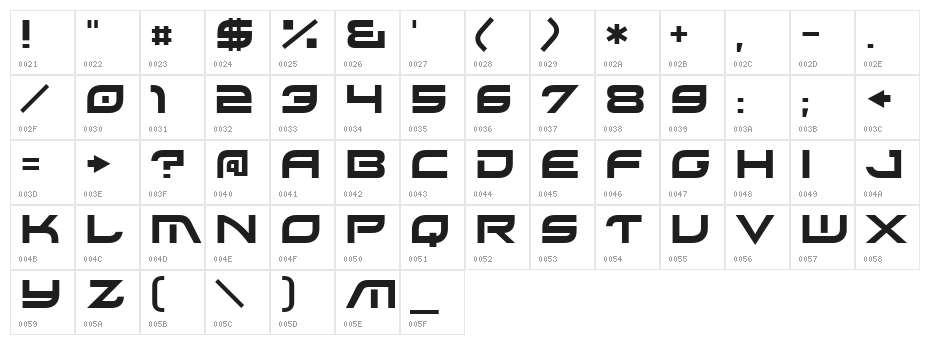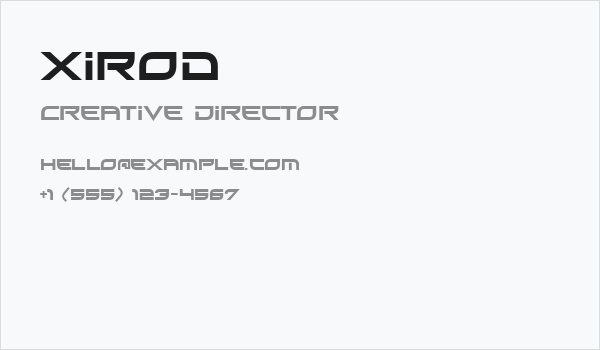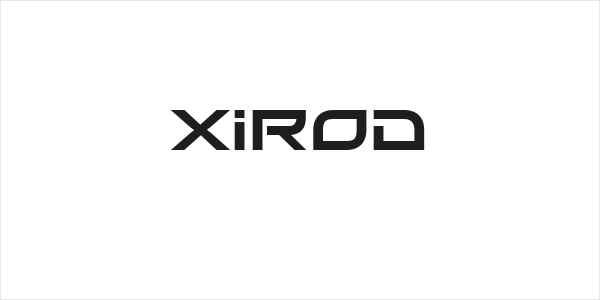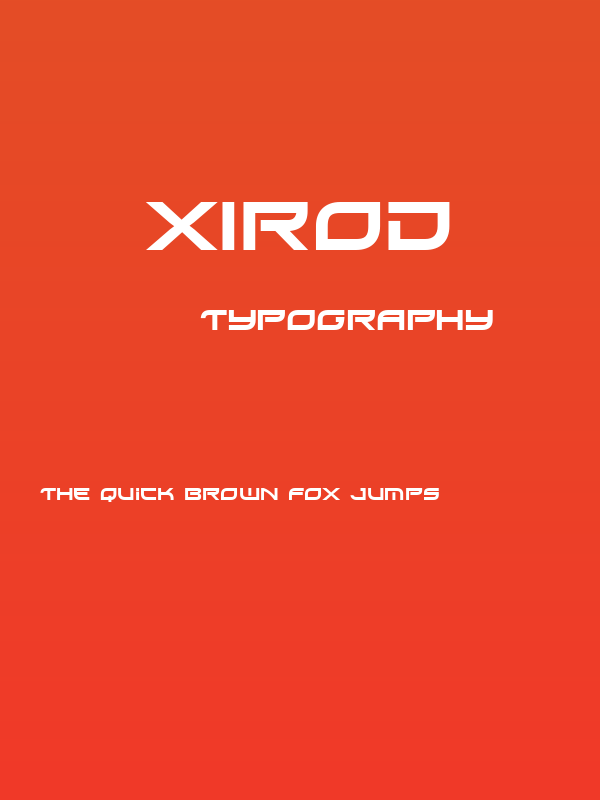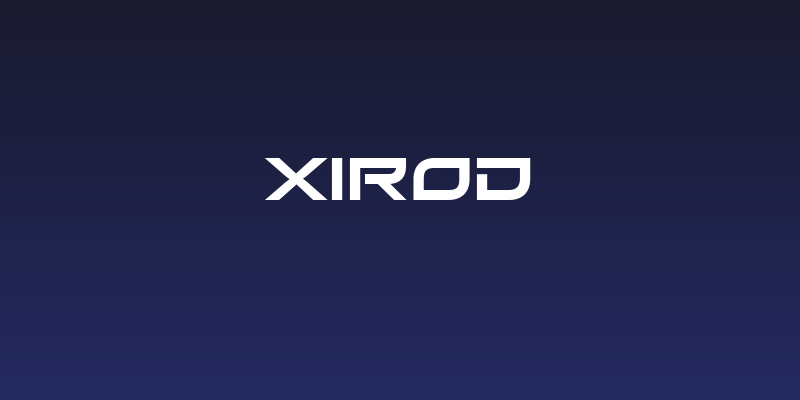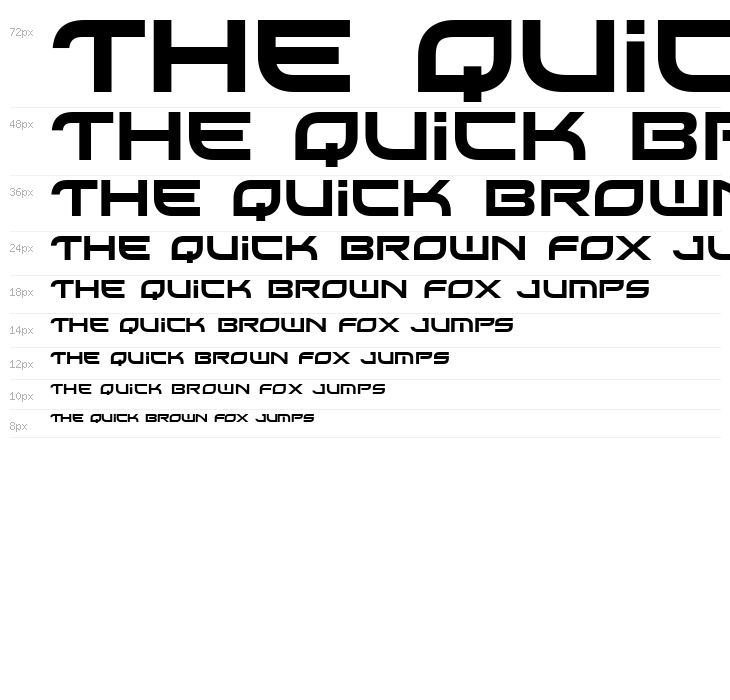
Xirod Font
Xirod Description
This font features a futuristic and geometric design, characterized by its bold and angular letterforms. The uppercase letters exhibit a strong presence with sharp edges and a consistent stroke width, creating a sense of uniformity and modernity. The lowercase letters maintain the same geometric style, ensuring readability while adding a unique flair. The numerals are distinct and align well with the overall aesthetic, making them suitable for digital displays or tech-oriented designs. Special characters are crafted with the same attention to detail, ensuring they complement the alphanumeric characters seamlessly.
| Proposed Projects | Ideal for tech branding, digital interfaces, video game titles, and futuristic-themed projects. |